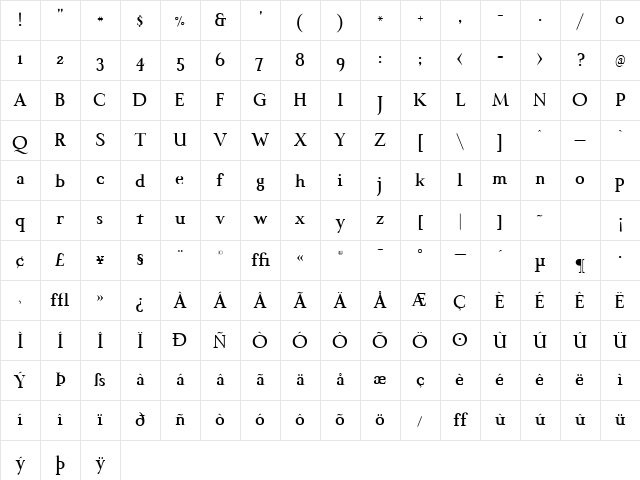
Indispose Medium Free Font
Indispose Medium
Design Context for Indispose
Indispose is a composed and adaptable typeface that performs quietly and consistently across a wide range of design contexts.